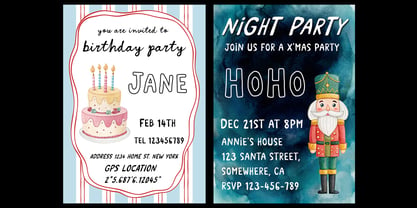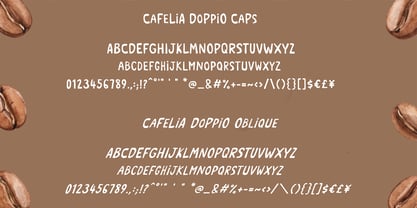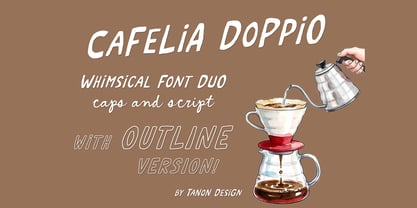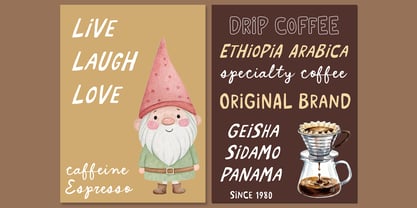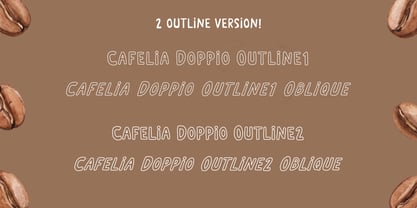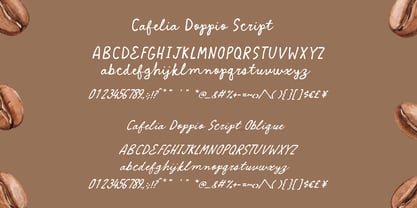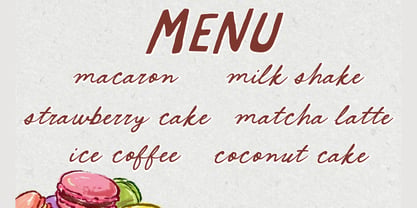
Cafelia Doppio Font Duo
Die Schriftfamilie Cafelia Doppio Font Duo wurde von Tanonnat Kaeoket entworfen und von Tanon Design veröffentlicht. Cafelia Doppio Font Duo enthält 8 Stile und Familienpaketoptionen. Mehr über diese Familie
Introducing the Cafelia Doppio Font Duo, a beautifully whimsical handwritten font. This versatile family features Caps, Script, and Outline versions to give your work a perfectly imperfect, cozy hand-drawn feel. Whether you're creating bold poster prints, playful greeting cards, engaging social media posts, or unique branding, Cafelia Doppio brings a warm, personal touch to any design. It looks absolutely fantastic on everything from t-shirts and mugs to digital crafts and printed invitations!